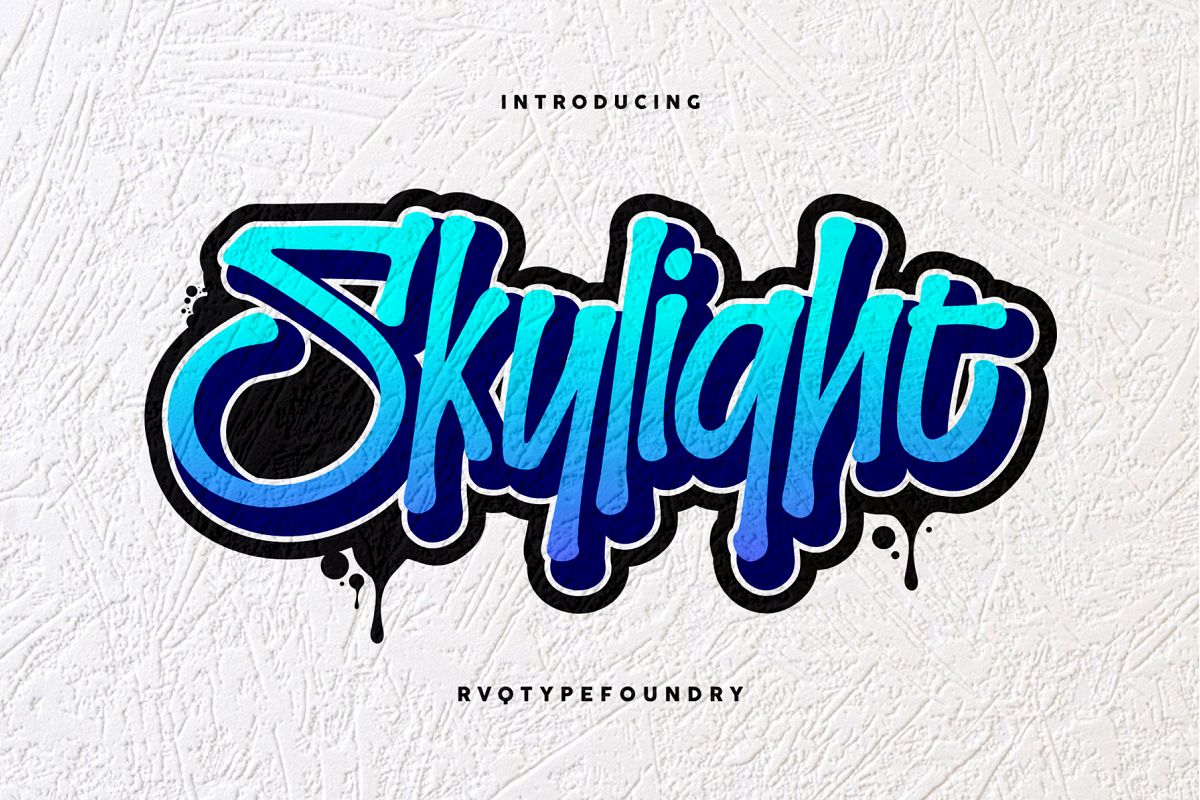
The Skylight Graffiti is new font from Rvq Typefoundry, elegant feel character set.To create the beautiful combination,
just mix the uppercase and lowercase then mix with the alternative glyphs.
The Skylight Graffitis insfire from graffiti style.Product Content :